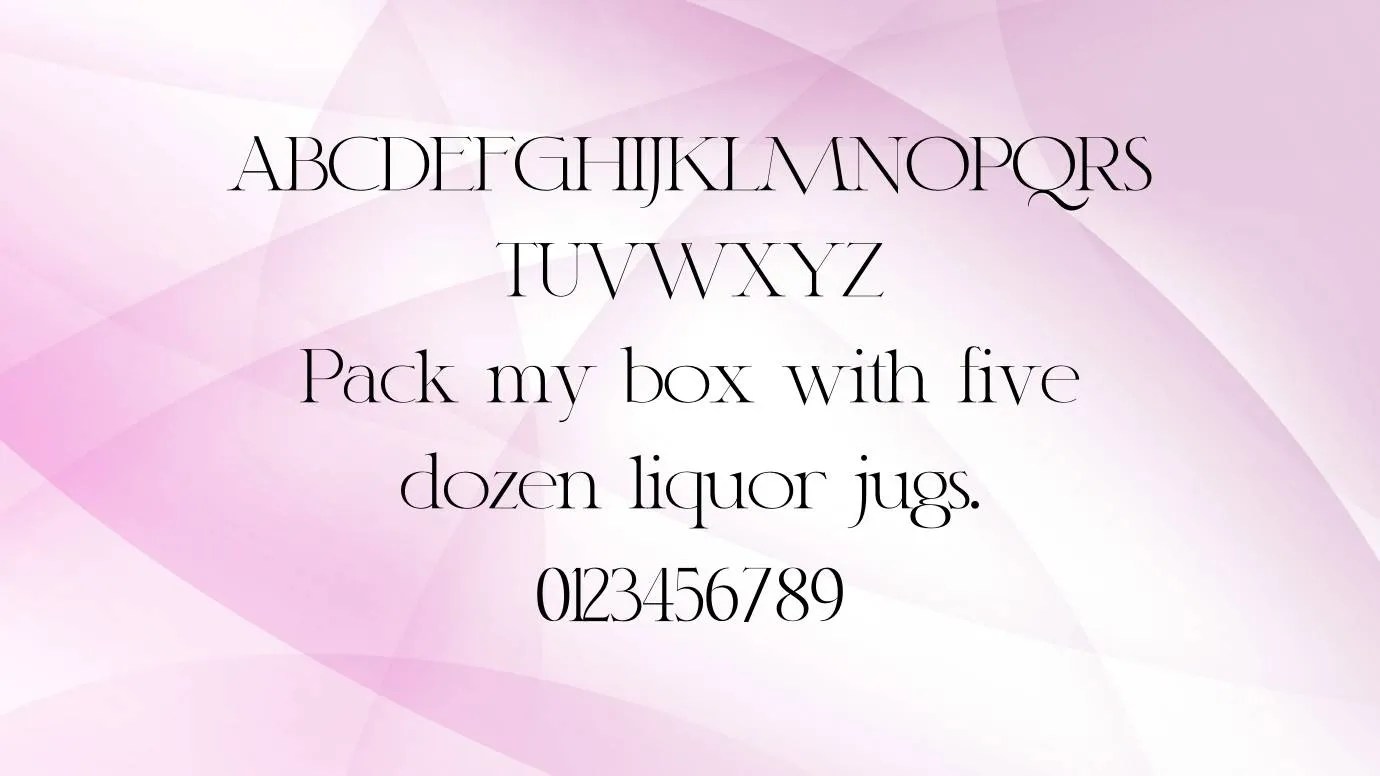
What Is A Classy Font . Classy fonts are usually dominated by serif typefaces, but this sans serif font makes the list. We've created a list of 50 free elegant, stylish and classy fonts and elegant typeface to incorporate into your designs. Usually, most of these elegant fonts are script and handwritten typefaces or take their inspiration. In this article, we'll take a look at what makes chic fonts stylish and see some awesome examples of classy fonts and luxury bold fonts. Download for free and give your work a polished, professional look. An elegant font is one that feels very formal, classic or luxurious from the moment you see it. To style elegant campaigns or projects, every graphic designer must have a strong, classy font library. A unique selection of timeless, sophisticated fonts that are perfect for any creative project. Its geometric look gives it quite a high class. Every font is free to download! Click to find the best 1,260 free fonts in the classy style. There will be popular fonts, script typefaces, and decorative strokes.
We've created a list of 50 free elegant, stylish and classy fonts and elegant typeface to incorporate into your designs. Download for free and give your work a polished, professional look. There will be popular fonts, script typefaces, and decorative strokes. Every font is free to download! A unique selection of timeless, sophisticated fonts that are perfect for any creative project. To style elegant campaigns or projects, every graphic designer must have a strong, classy font library. Usually, most of these elegant fonts are script and handwritten typefaces or take their inspiration. An elegant font is one that feels very formal, classic or luxurious from the moment you see it. Classy fonts are usually dominated by serif typefaces, but this sans serif font makes the list. In this article, we'll take a look at what makes chic fonts stylish and see some awesome examples of classy fonts and luxury bold fonts.
What Is A Classy Font An elegant font is one that feels very formal, classic or luxurious from the moment you see it. In this article, we'll take a look at what makes chic fonts stylish and see some awesome examples of classy fonts and luxury bold fonts. Its geometric look gives it quite a high class. Usually, most of these elegant fonts are script and handwritten typefaces or take their inspiration. There will be popular fonts, script typefaces, and decorative strokes. Click to find the best 1,260 free fonts in the classy style. We've created a list of 50 free elegant, stylish and classy fonts and elegant typeface to incorporate into your designs. Download for free and give your work a polished, professional look. A unique selection of timeless, sophisticated fonts that are perfect for any creative project. Every font is free to download! Classy fonts are usually dominated by serif typefaces, but this sans serif font makes the list. To style elegant campaigns or projects, every graphic designer must have a strong, classy font library. An elegant font is one that feels very formal, classic or luxurious from the moment you see it.
Best Serif Fonts on Canva (Part 1) Levee Road Studio What Is A Classy Font Every font is free to download! Its geometric look gives it quite a high class. There will be popular fonts, script typefaces, and decorative strokes. We've created a list of 50 free elegant, stylish and classy fonts and elegant typeface to incorporate into your designs. Classy fonts are usually dominated by serif typefaces, but this sans serif font makes the. What Is A Classy Font.
The Art of Pairing Fonts Creating Harmonious Typographic Combinations What Is A Classy Font In this article, we'll take a look at what makes chic fonts stylish and see some awesome examples of classy fonts and luxury bold fonts. Every font is free to download! A unique selection of timeless, sophisticated fonts that are perfect for any creative project. Classy fonts are usually dominated by serif typefaces, but this sans serif font makes the. What Is A Classy Font.
Elegant font Calligraphy Wedding font svg Font Alphabet svg Etsy What Is A Classy Font Download for free and give your work a polished, professional look. We've created a list of 50 free elegant, stylish and classy fonts and elegant typeface to incorporate into your designs. In this article, we'll take a look at what makes chic fonts stylish and see some awesome examples of classy fonts and luxury bold fonts. An elegant font is. What Is A Classy Font.
Development 33 Best Modern Serif Fonts (Bold, Clean, & Elegant) What Is A Classy Font Classy fonts are usually dominated by serif typefaces, but this sans serif font makes the list. There will be popular fonts, script typefaces, and decorative strokes. Download for free and give your work a polished, professional look. An elegant font is one that feels very formal, classic or luxurious from the moment you see it. Click to find the best. What Is A Classy Font.
Original Classy Branding Font on Yellow Images Creative Store 126139 What Is A Classy Font Click to find the best 1,260 free fonts in the classy style. Its geometric look gives it quite a high class. A unique selection of timeless, sophisticated fonts that are perfect for any creative project. Download for free and give your work a polished, professional look. Usually, most of these elegant fonts are script and handwritten typefaces or take their. What Is A Classy Font.
10 Free Elegant Fonts — Gawoon Chung What Is A Classy Font In this article, we'll take a look at what makes chic fonts stylish and see some awesome examples of classy fonts and luxury bold fonts. We've created a list of 50 free elegant, stylish and classy fonts and elegant typeface to incorporate into your designs. To style elegant campaigns or projects, every graphic designer must have a strong, classy font. What Is A Classy Font.
Fabulous Free Font Pairings for Special Occasions What Is A Classy Font Usually, most of these elegant fonts are script and handwritten typefaces or take their inspiration. Click to find the best 1,260 free fonts in the classy style. Download for free and give your work a polished, professional look. Its geometric look gives it quite a high class. Every font is free to download! An elegant font is one that feels. What Is A Classy Font.
Tải ngay Font Elegant sang trọng và đẳng cấp What Is A Classy Font Download for free and give your work a polished, professional look. Usually, most of these elegant fonts are script and handwritten typefaces or take their inspiration. In this article, we'll take a look at what makes chic fonts stylish and see some awesome examples of classy fonts and luxury bold fonts. We've created a list of 50 free elegant, stylish. What Is A Classy Font.
30 Stylish Modern Fonts For Designers Modern serif fonts, Lettering What Is A Classy Font A unique selection of timeless, sophisticated fonts that are perfect for any creative project. Classy fonts are usually dominated by serif typefaces, but this sans serif font makes the list. Click to find the best 1,260 free fonts in the classy style. Usually, most of these elegant fonts are script and handwritten typefaces or take their inspiration. Its geometric look. What Is A Classy Font.